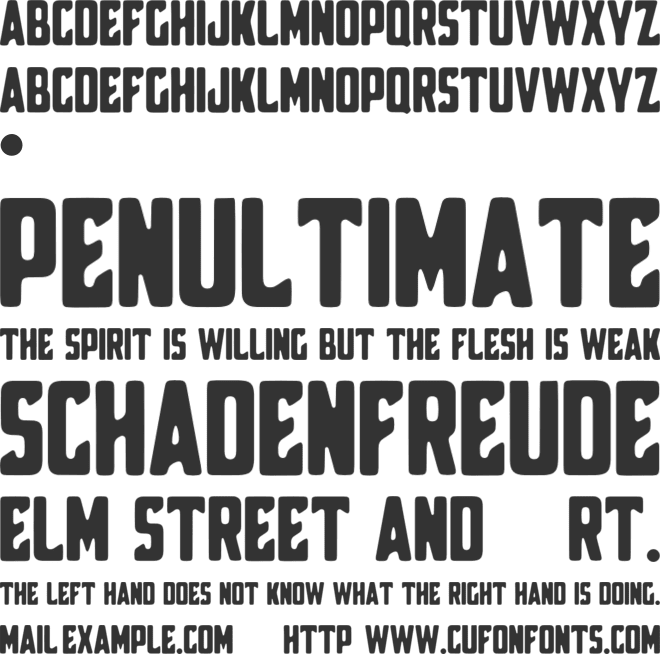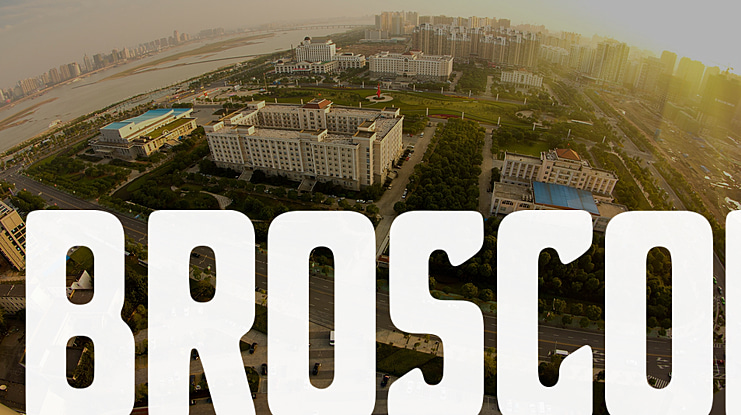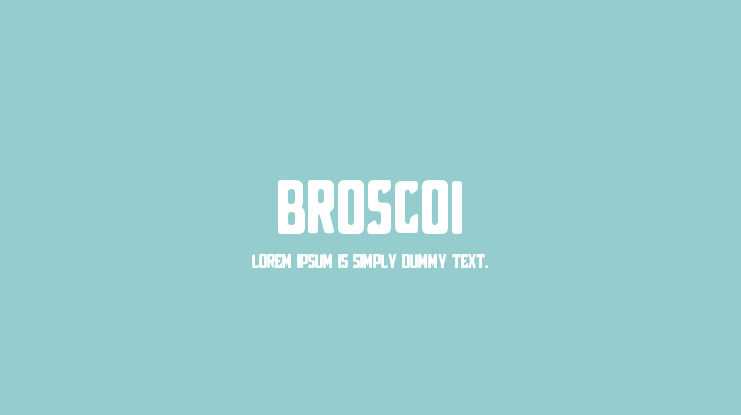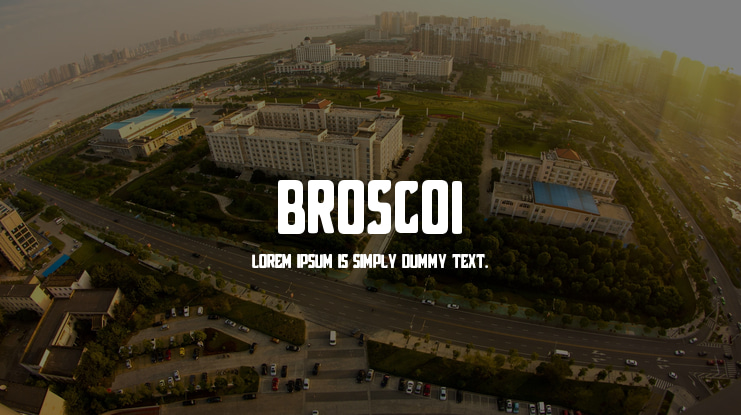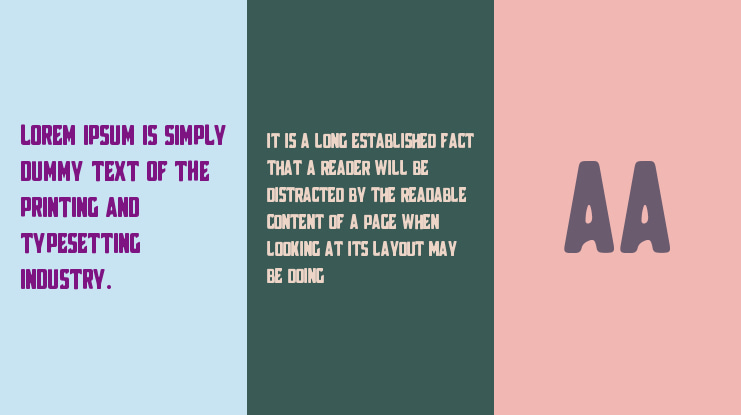
Broscoi Font
Mircea Bucsa
Meet "Broscoi - Free Vintage Font"
This is a demo version of the "Broscoi Font Family". It includes only the rough uppercase letters.
It works nicely for projects that require a more refined yet vintage aesthetic. It would be a perfect choice to design posters, logos, t-shirt and magazine prints, eye-pleasing typographic designs and more.